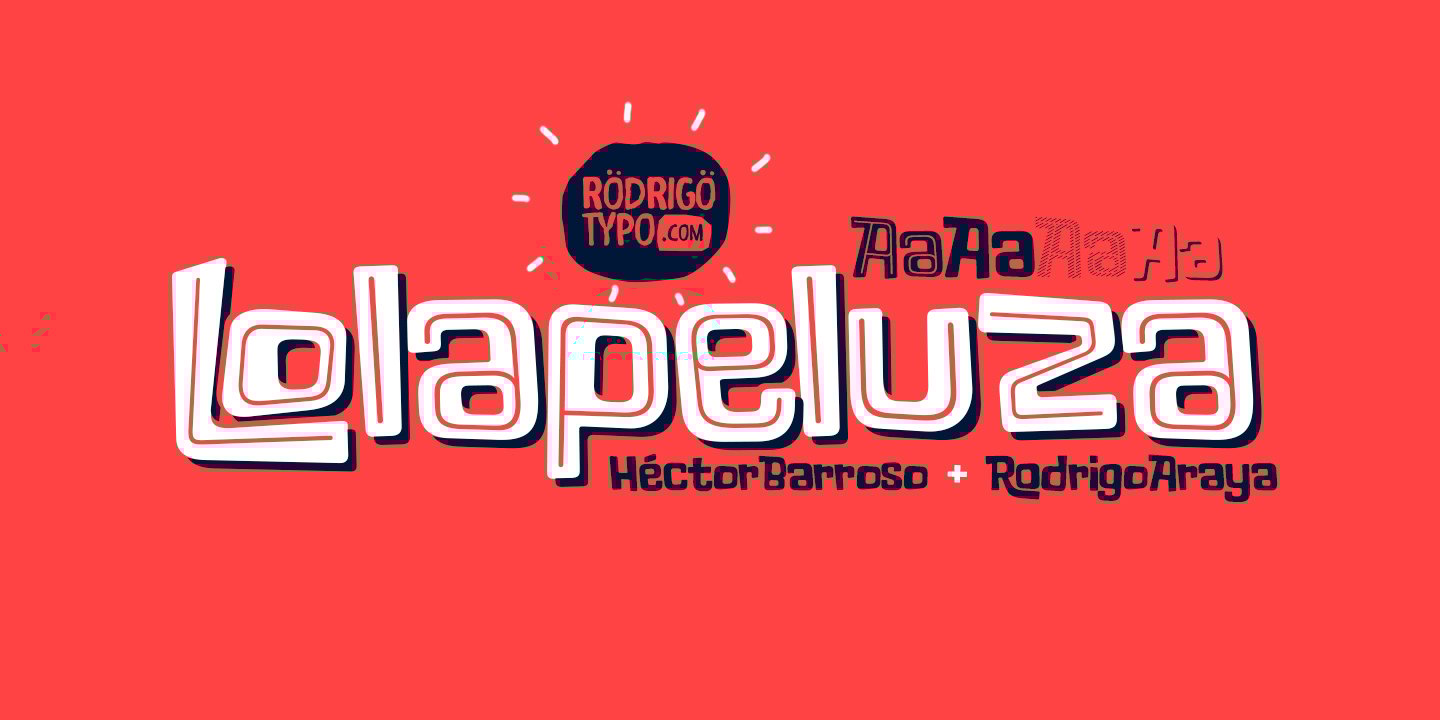
Lolapeluza Font is perfect for various applications including music festival branding, energetic concert posters, alternative band logos, vibrant youth marketing, dynamic event graphics, creative music venues, indie record labels, artistic performance materials, rebellious lifestyle brands, and electrifying entertainment campaigns.
What makes Lolapeluza Font so exciting is its explosive ability to capture the raw energy and rebellious spirit of alternative music culture through typography that pulses with festival excitement and underground authenticity. This dynamic typeface features bold, expressive letterforms with festival proportions and music-inspired details that evoke the electric atmosphere of live concerts and the creative freedom of alternative music scenes. The font's rebellious character and festival-inspired aesthetic make it ideal for brands that want to convey energy, creativity, and musical authenticity to audiences who live for live music, festival experiences, and alternative culture.
Lolapeluza Font family includes multiple weights and styles: Light, Regular, Bold, Black, Festival, Condensed, Extended, Electric, and musically crafted Italic variants. Each family member maintains the font's signature festival energy while offering different levels of visual impact and stylistic flexibility for diverse music and entertainment applications.
The Lolapeluza Font Free Download provides designers with access to a festival-inspired typeface that excels in music and entertainment markets. Whether you're creating dynamic music festival identities, designing high-energy concert materials, or developing vibrant entertainment experiences, this font delivers the electrifying aesthetic needed to capture the spirit of live music and festival culture. Its rebellious styling and musical essence make it particularly effective for music venues, festival organizers, and alternative entertainment brands.
Typography rockers will appreciate the explosive energy and musical inspiration in Lolapeluza Font's design. The font features dynamically crafted letterforms with festival proportions, optimized spacing for high-impact applications, and carefully engineered details that ensure excellent visibility even in crowded festival environments while maintaining its electric character. From concert stage banners to music merchandise, this typeface maintains its energy and festival appeal across all entertainment contexts.
For music web designers, Lolapeluza Font provides outstanding performance in entertainment digital environments and festival platforms. The font's technical specifications are optimized for dynamic presentations while preserving the bold, expressive edges that define its festival character. Its electric energy makes it suitable for both static music content and interactive festival experiences.
Creative professionals working in music entertainment, festival production, alternative culture, and live event marketing will find Lolapeluza Font to be an essential tool for projects requiring energetic visual communication. The font's ability to convey excitement, rebellion, and musical authenticity makes it invaluable for brands targeting music fans and festival-going demographics.
Design agencies specializing in music and entertainment brands appreciate Lolapeluza Font's versatility in creating memorable festival identities.